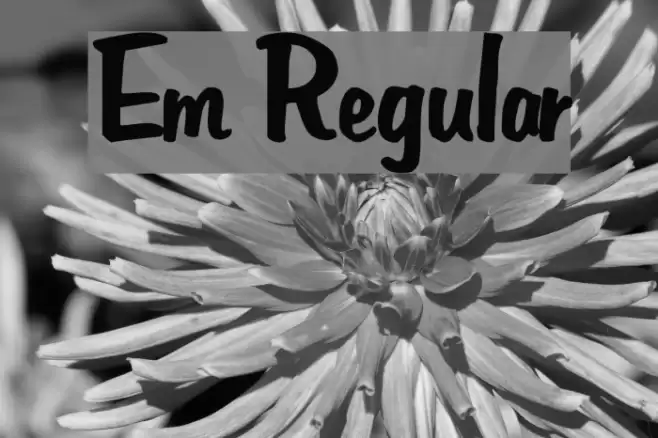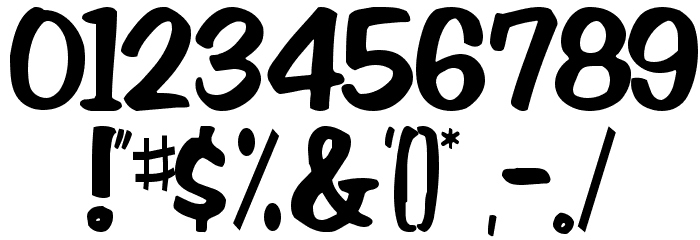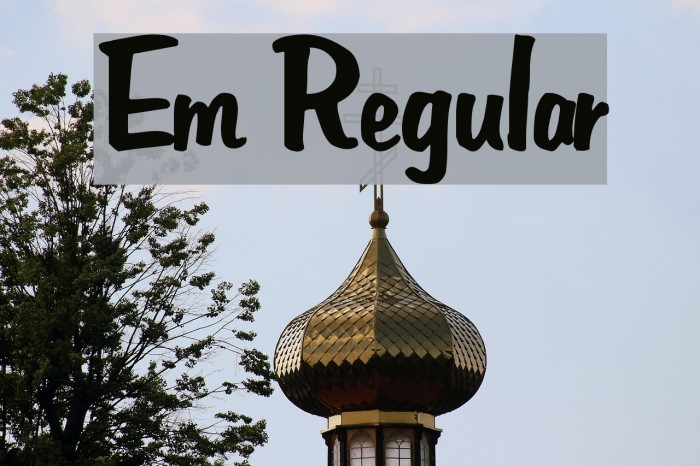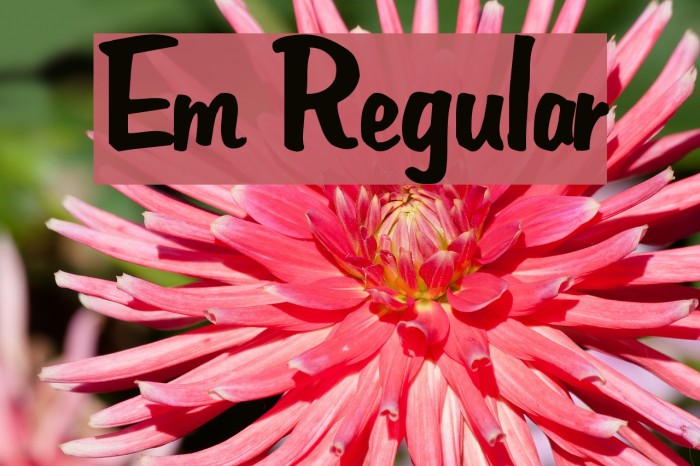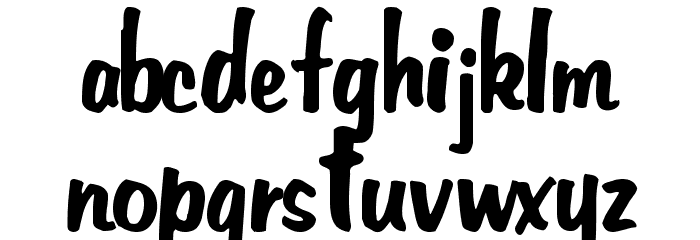
Em Regular Font
Em Regular Description
This font features a playful and bold script style with a hand-drawn appearance. The uppercase letters are slightly slanted, giving a dynamic and energetic feel. The lowercase letters maintain a consistent flow, enhancing readability while retaining a casual charm. Numbers and special characters are designed with the same playful curves, ensuring a cohesive look across all elements. The strokes are thick and rounded, contributing to a friendly and approachable aesthetic. This font is well-suited for projects that require a personal touch, such as invitations, greeting cards, or branding for creative businesses.
A playful, bold script font with a hand-drawn, casual style from Uncategorized fonts.
- Proposed Projects: Ideal for invitations, greeting cards, creative branding, and playful designs.
- Use Case: Logos, Headlines, Invitations